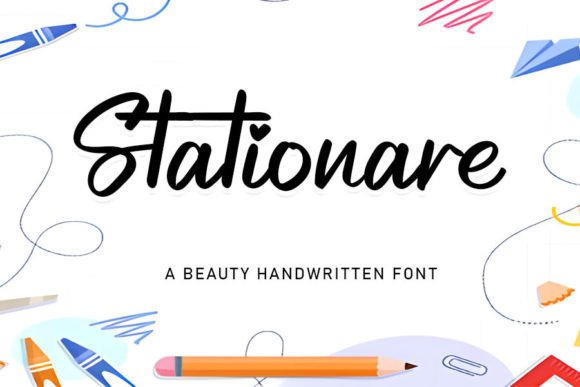
Journey into the world of Stationare, a captivating script font family designed to ignite creativity and transform your designs. With its enchanting handwritten appearance, Stationare exudes a charm that is both personal and inviting. Crafted with precision and attention to detail, this font possesses a natural flow that mimics the beauty of hand-lettered artistry. Discover the boundless possibilities that await as you unleash the power of Stationare.
Stationare's allure lies in its versatility. Effortlessly adaptable to a myriad of design projects, it lends itself seamlessly to wedding invitations, greeting cards, branding materials, and social media graphics. Its gentle strokes and graceful curves evoke a sense of elegance and sophistication, while its playful personality adds a touch of whimsy and delight. Whether you're a seasoned designer or just starting your creative journey, Stationare is your perfect companion, ready to elevate your projects to new heights.
Immerse yourself in the charm of Stationare's meticulously crafted characters. Each letterform dances across the page, carrying with it a story, a sentiment, a connection. Its carefully balanced proportions ensure legibility and readability, even at smaller sizes, making it an ideal choice for both print and digital media. Prepare to be captivated by the beauty of Stationare, a font that breathes life into words and transforms them into works of art.
Step into a world where creativity knows no bounds. With Stationare as your trusted ally, you'll discover a font that seamlessly blends charm, elegance, and versatility. Whether you're designing wedding invitations that capture the essence of love, creating heartfelt greeting cards that convey warmth and joy, or developing branding materials that exude professionalism and sophistication, Stationare is your ultimate choice. Let your imagination soar as you explore the endless possibilities that await with this remarkable font family.